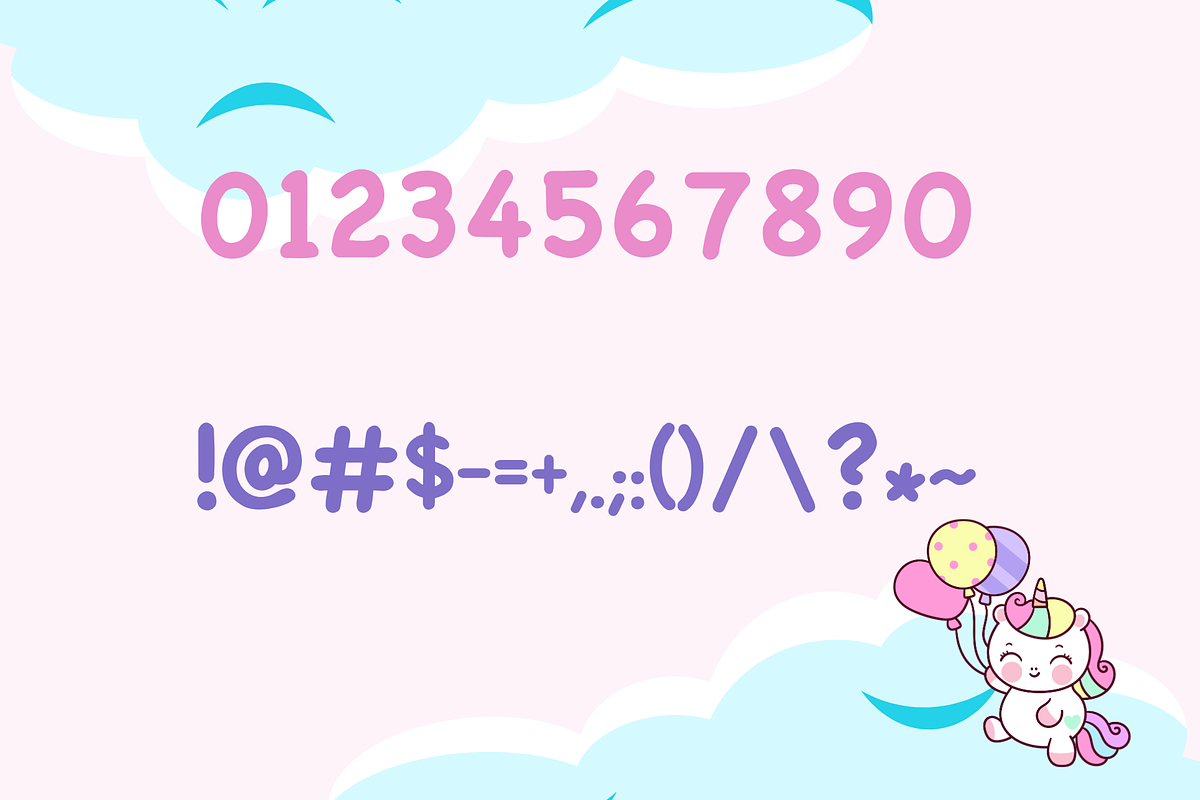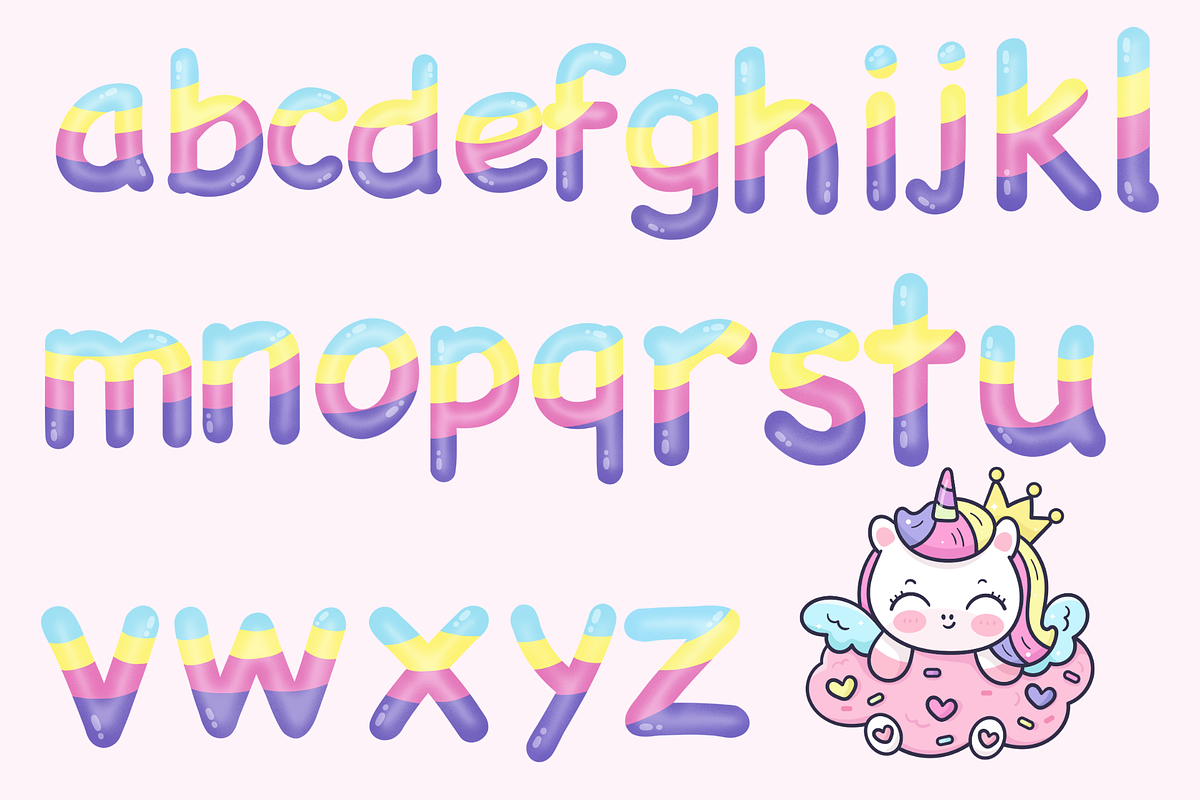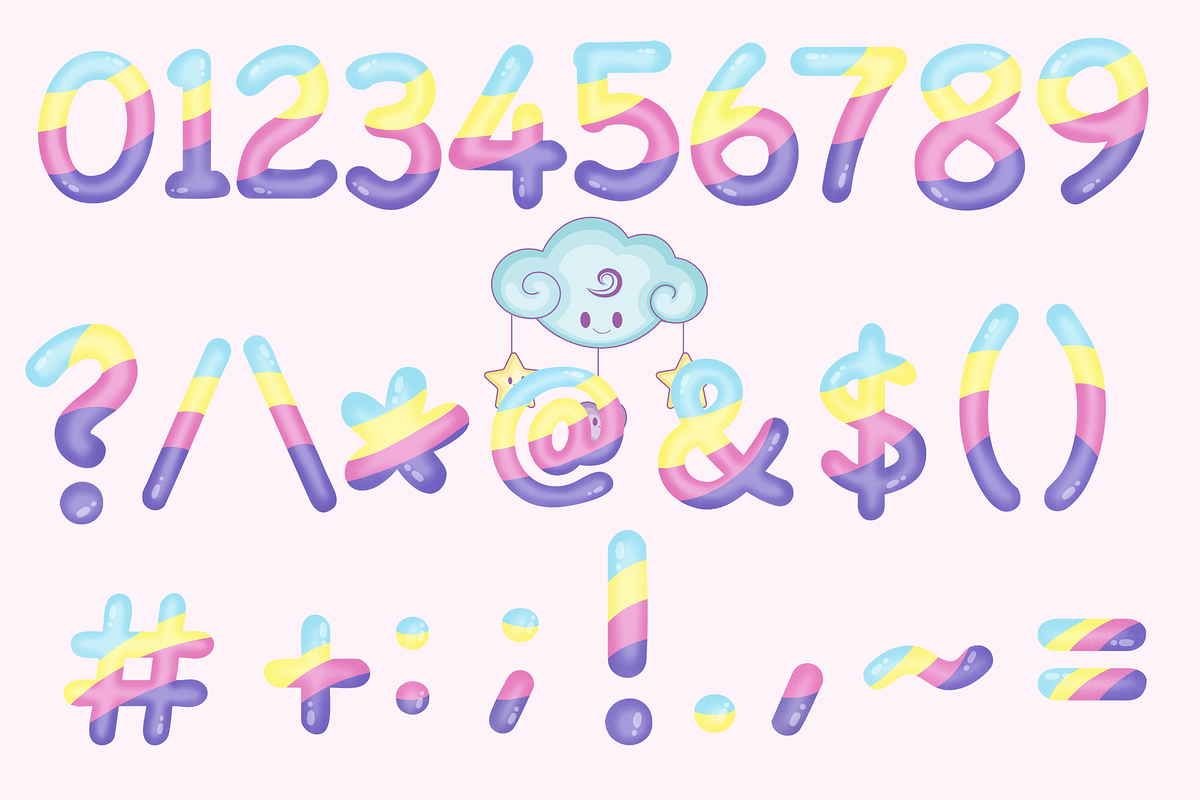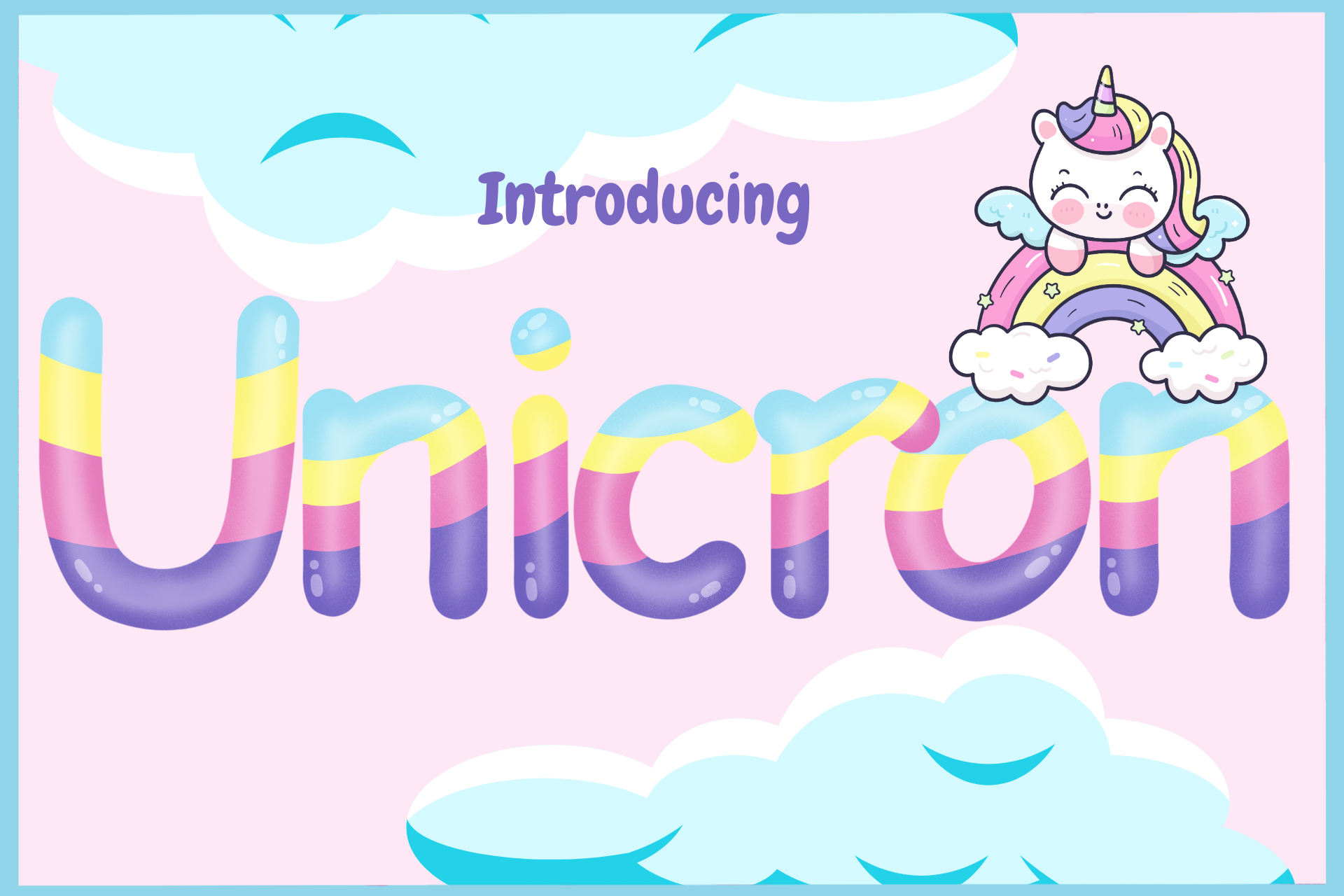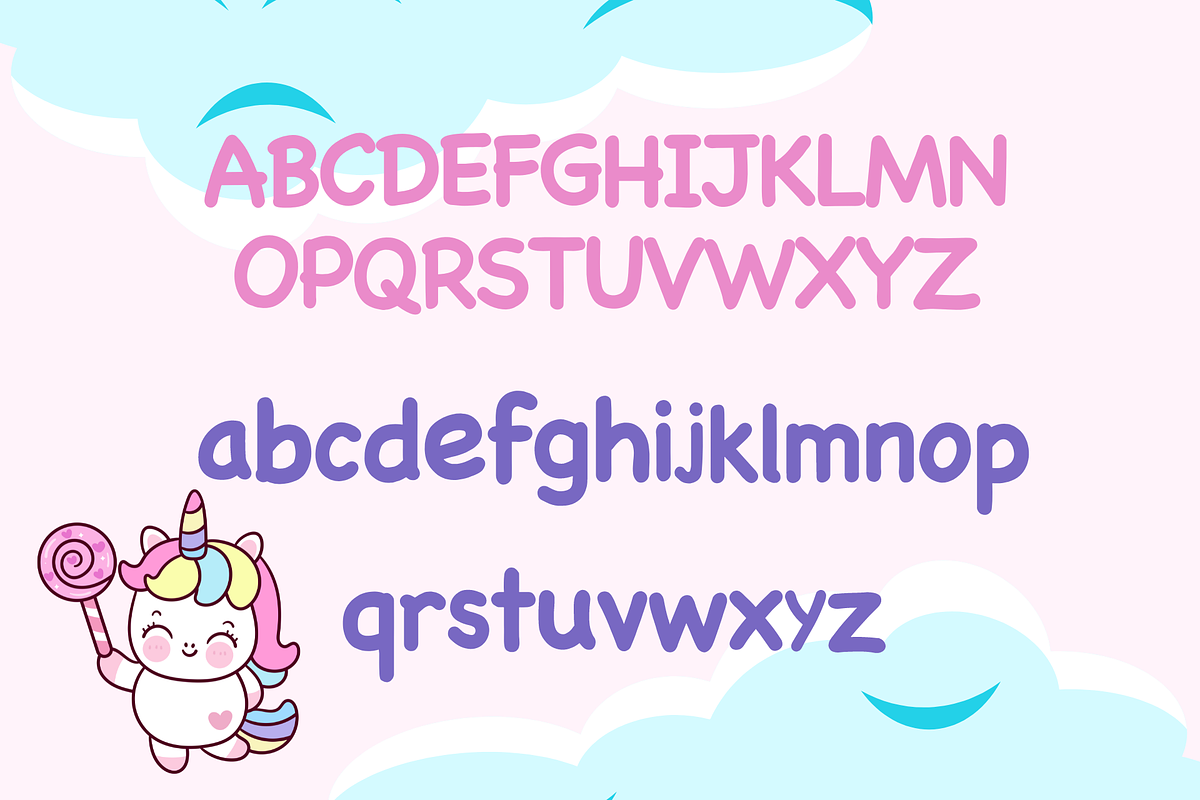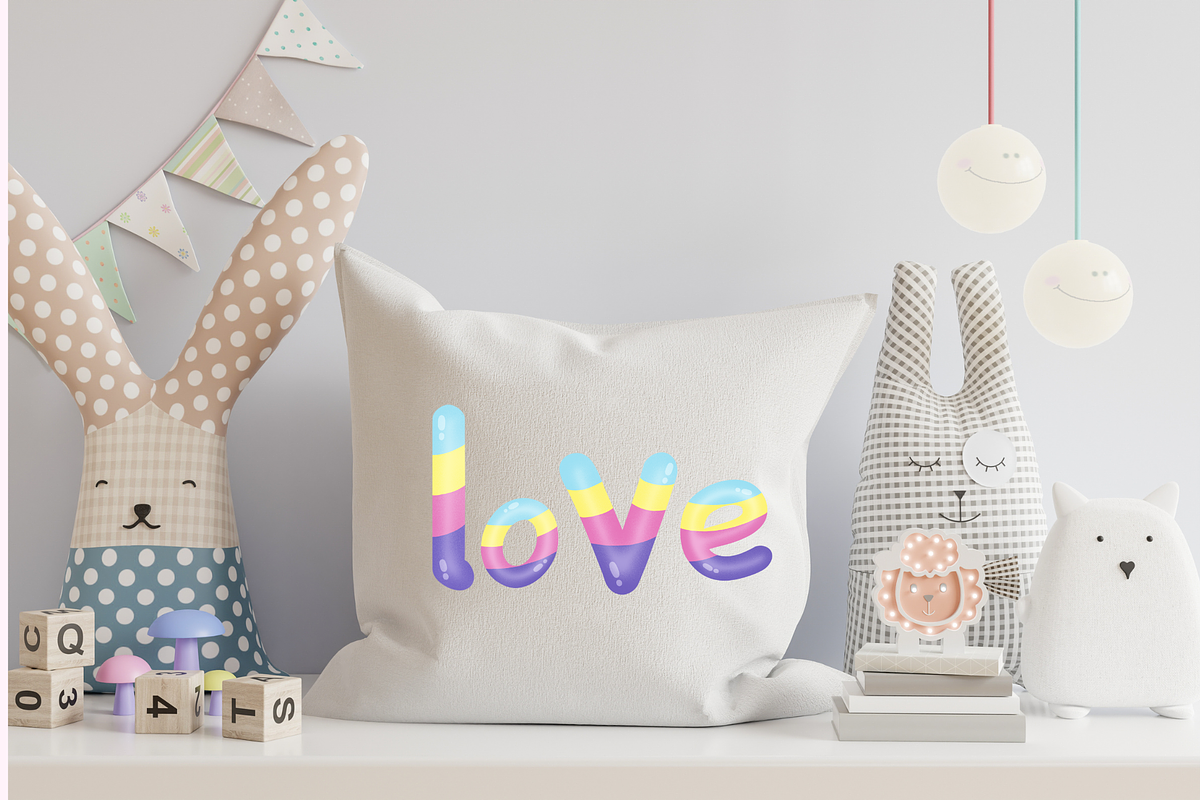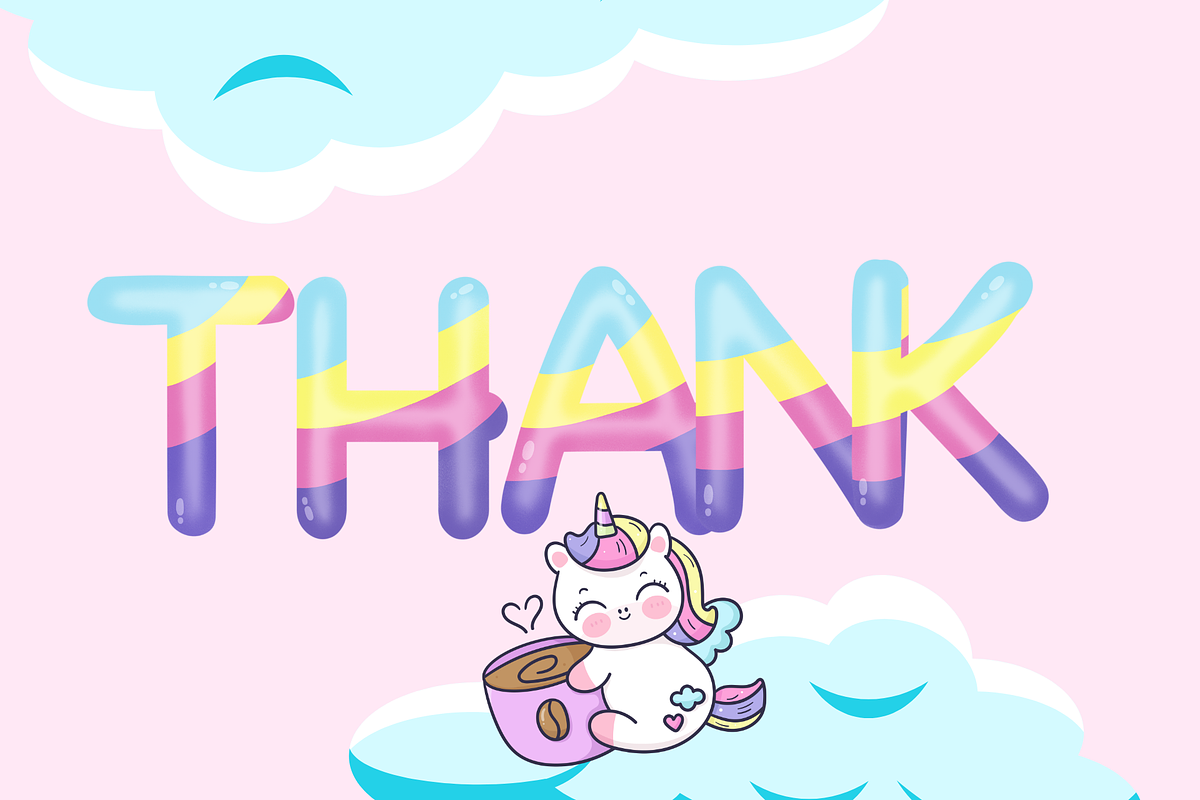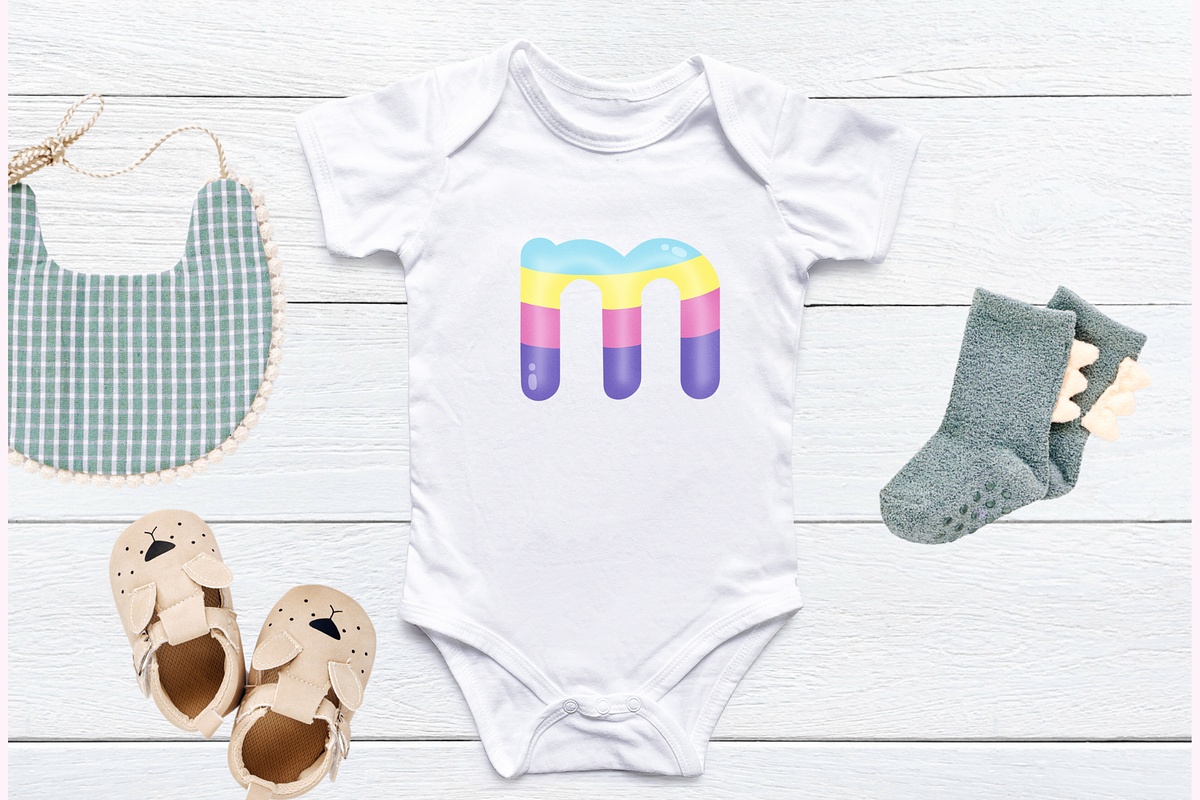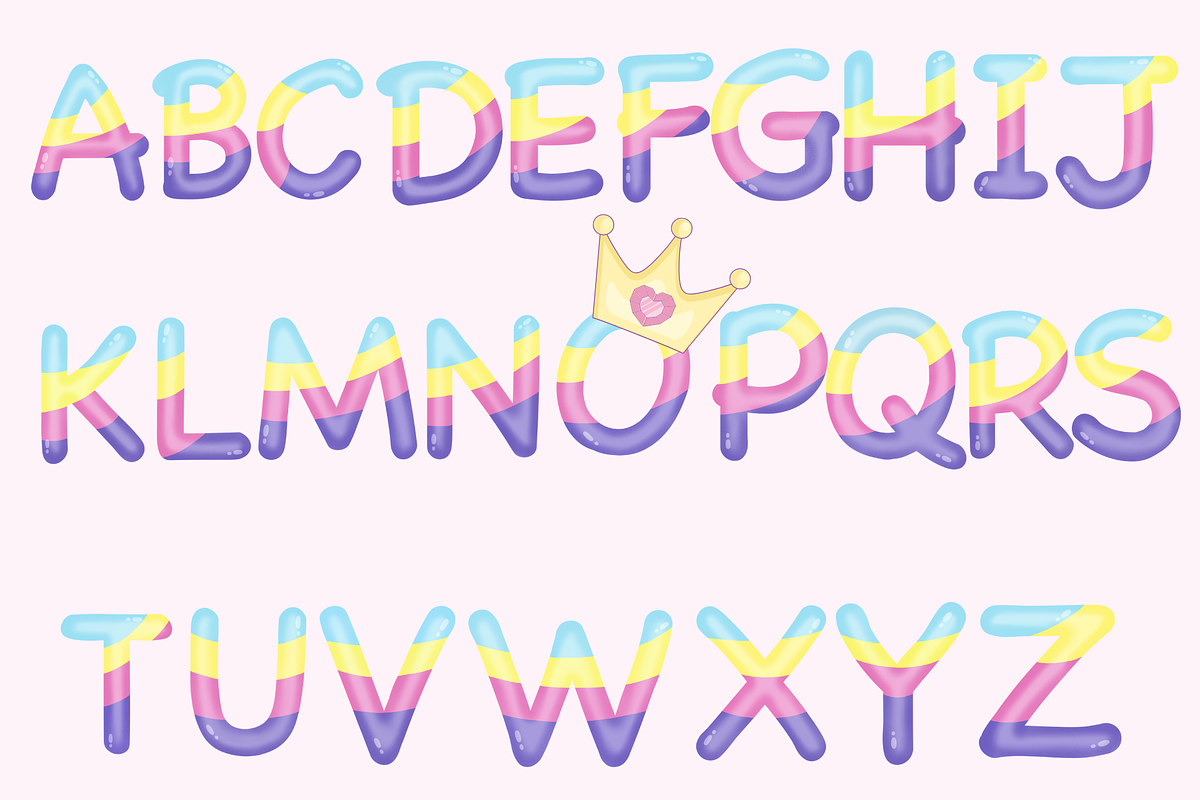
Unicron-PNG fonts
Unicron fonts,Super cute handwriting font, simple style, suitable for teaching. decorate the presentation Use for education, advertising, illustration, multi-purpose use. welcome everyone thanks
It is a creative, simple design that is suitable for all applications.